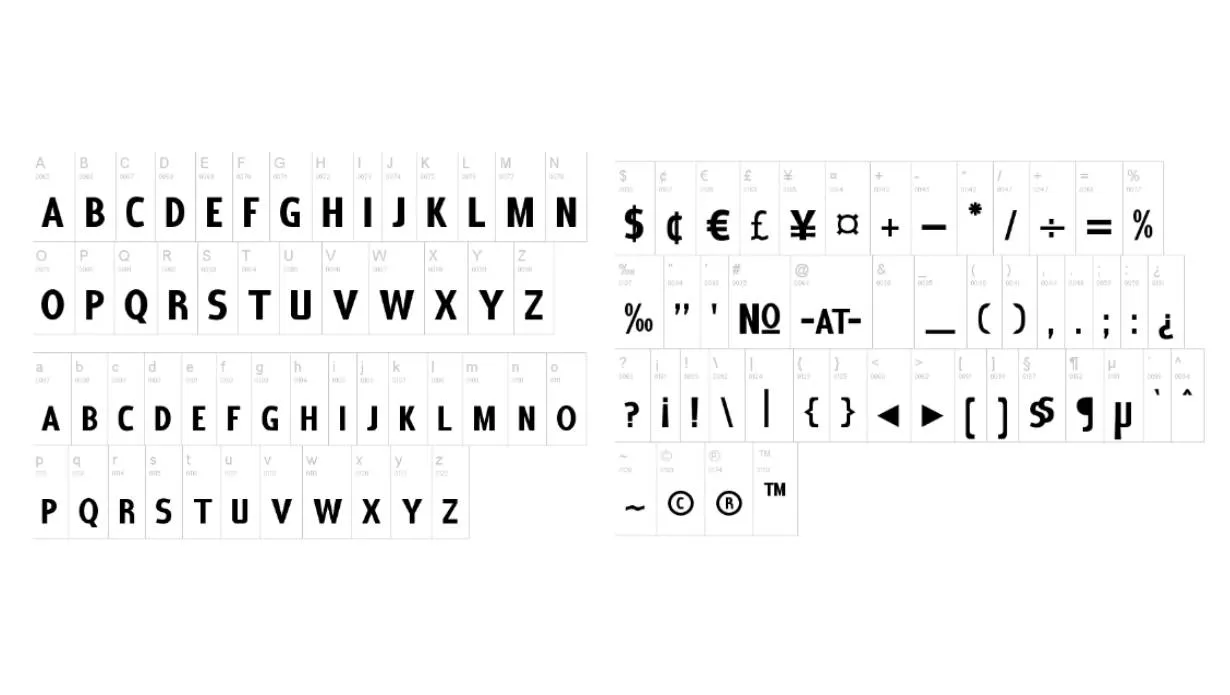
The Coffee Shop Font is like the aroma of freshly brewed coffee in typography form, perfect for projects related to cafes or coffee lovers. Its stylish characters bring a touch of warmth and coziness, making it ideal for menu designs or coffee shop branding.
| Name | Coffee Shop Font |
| Designer | Rajesh Rajput |